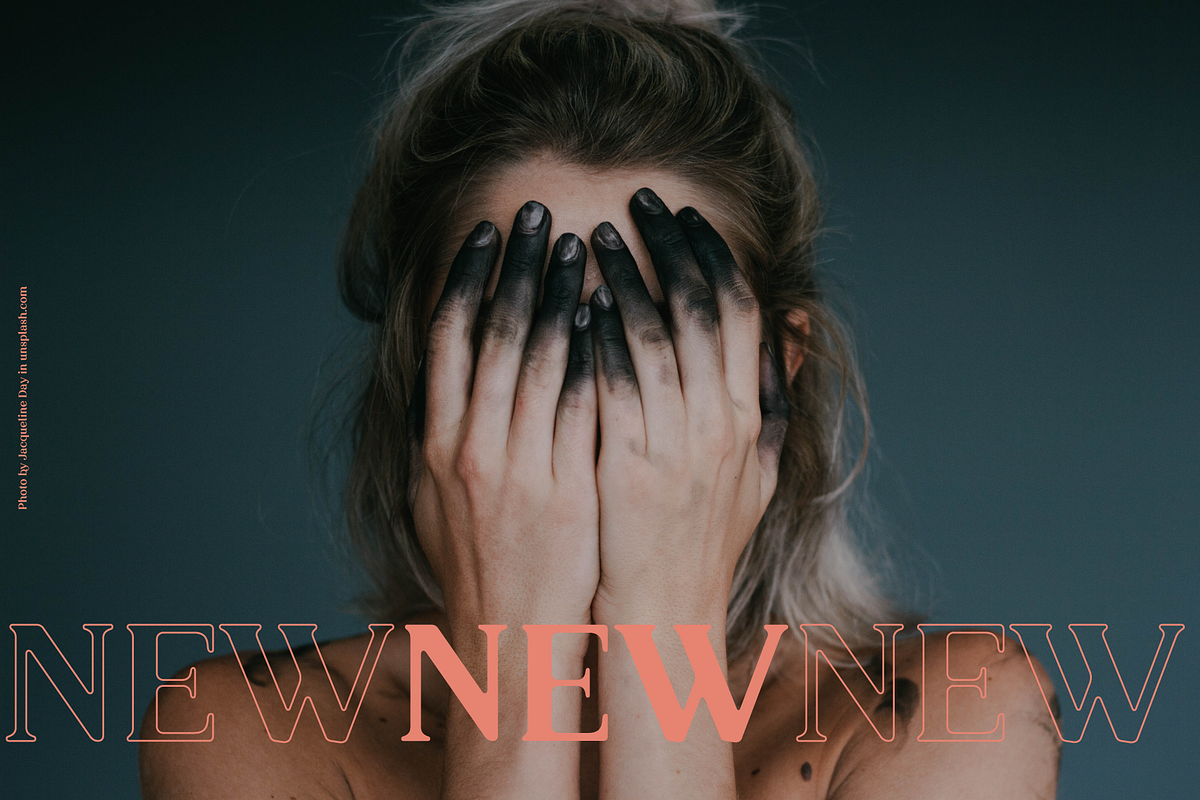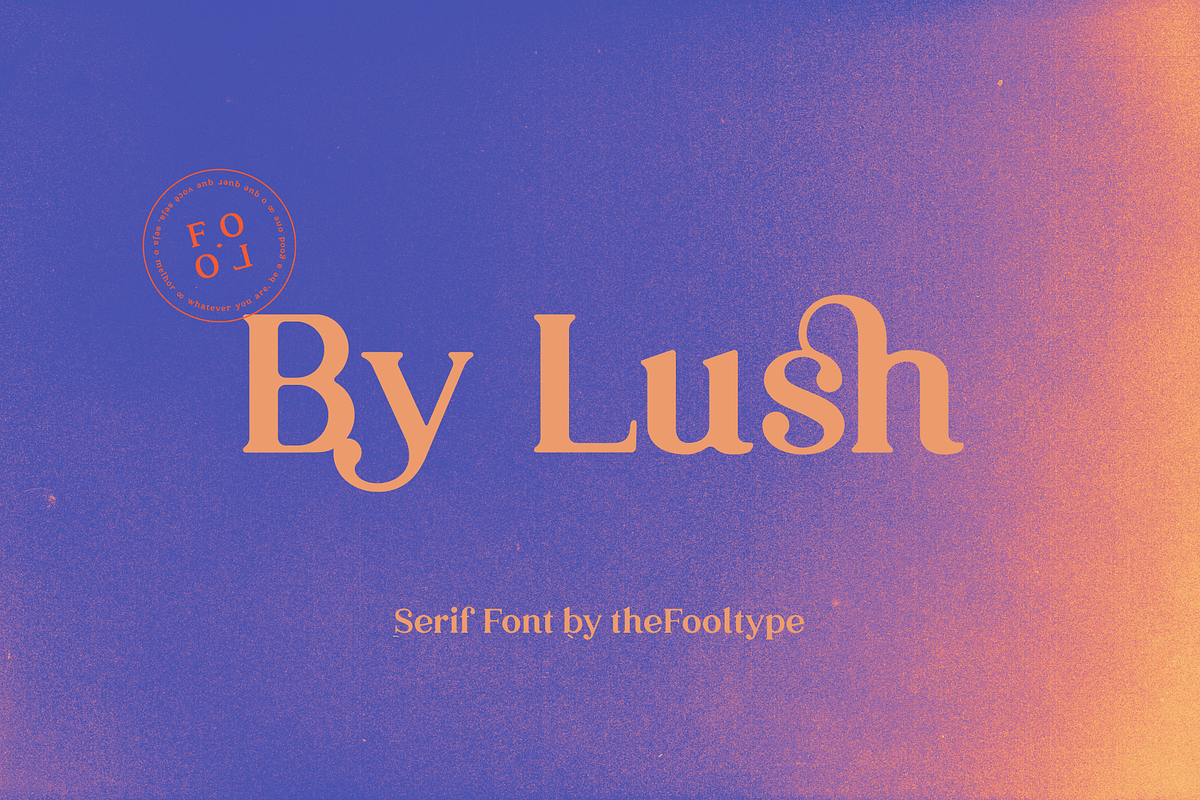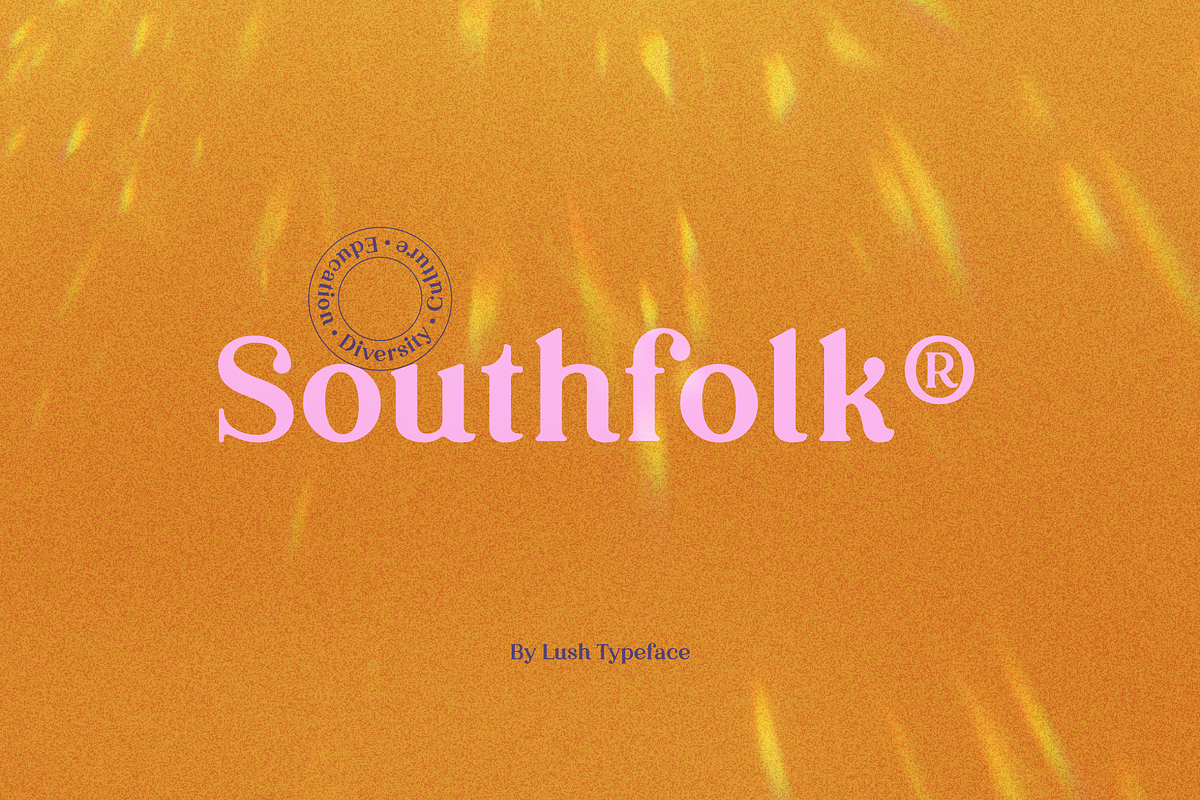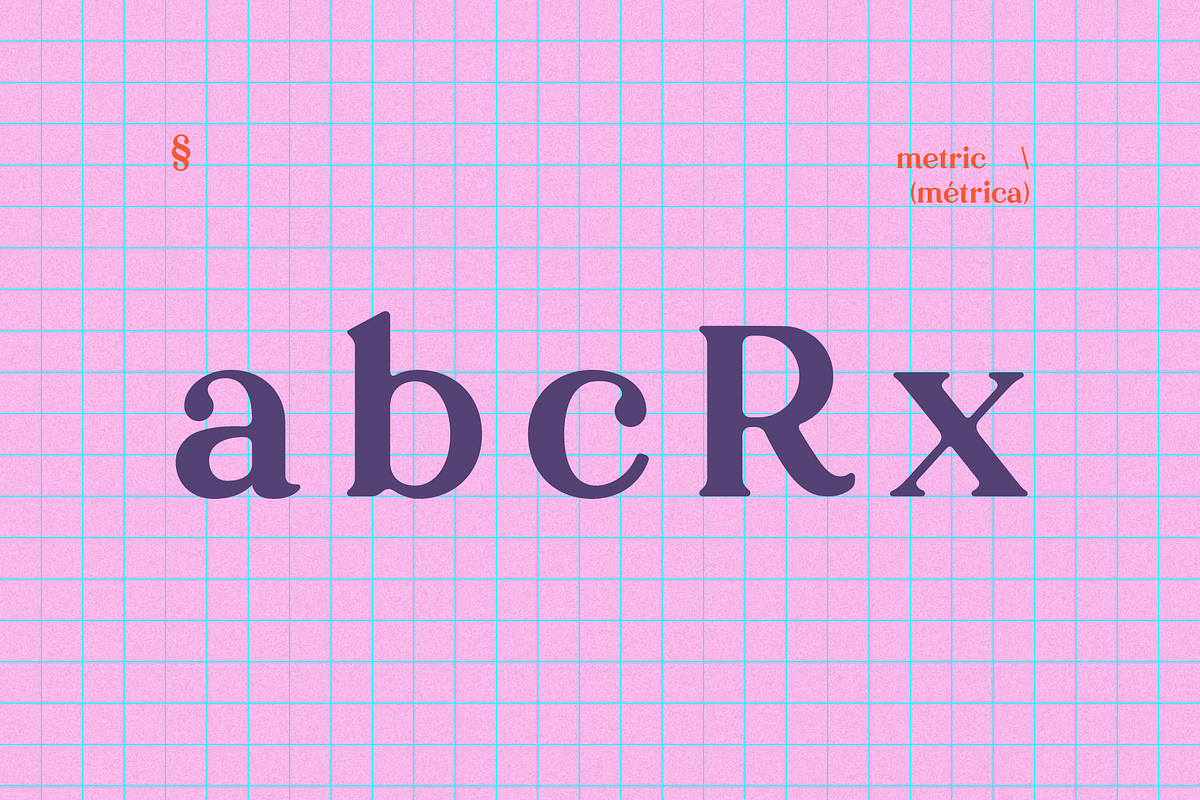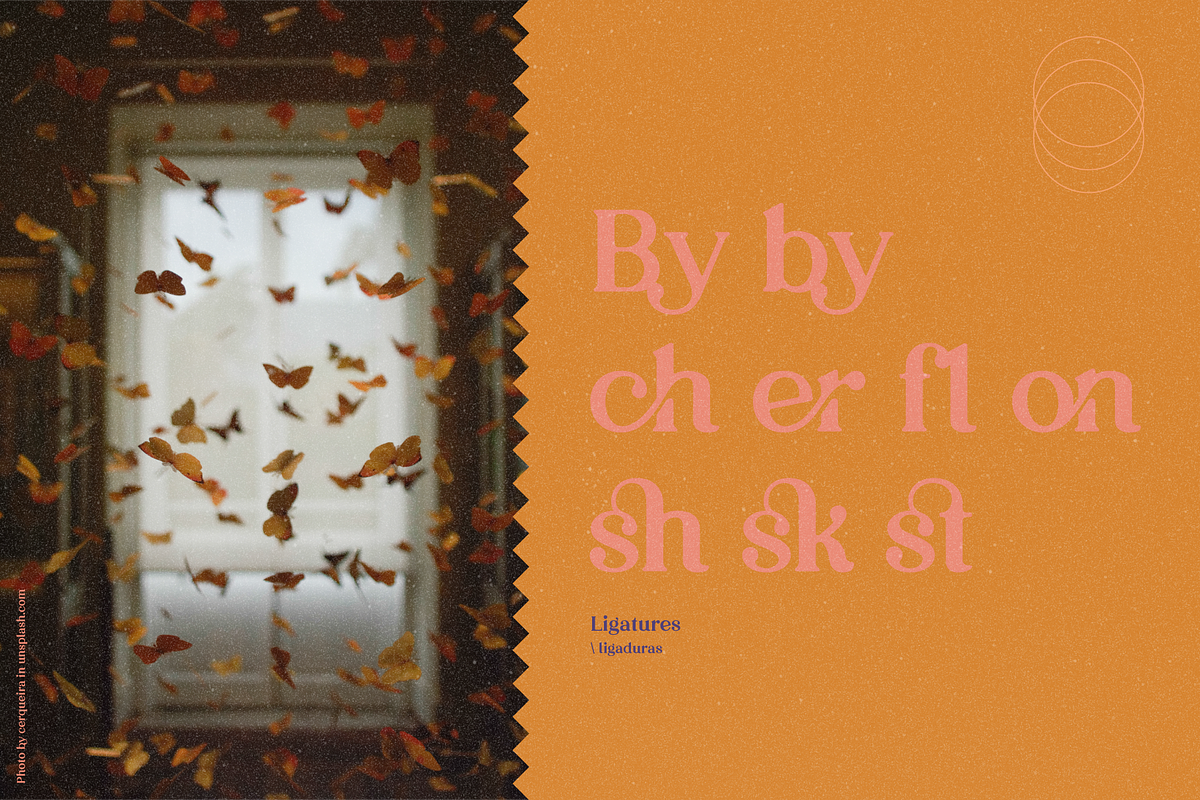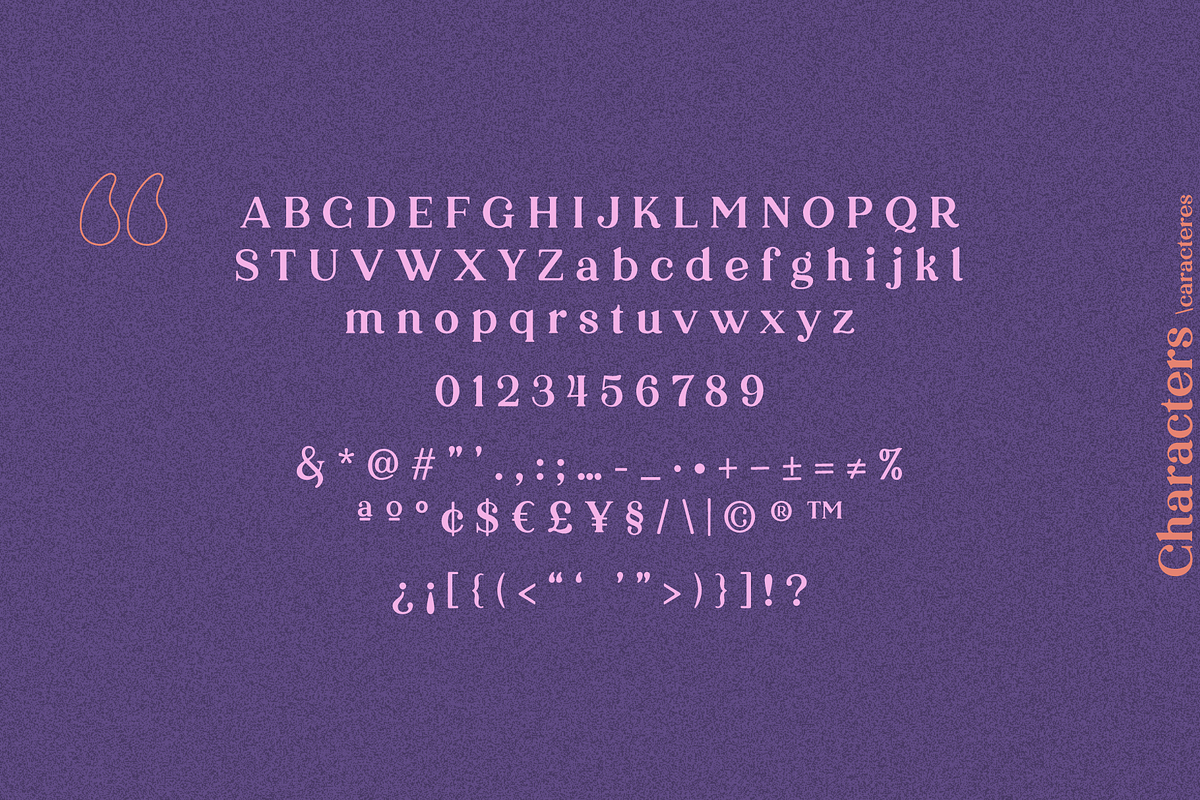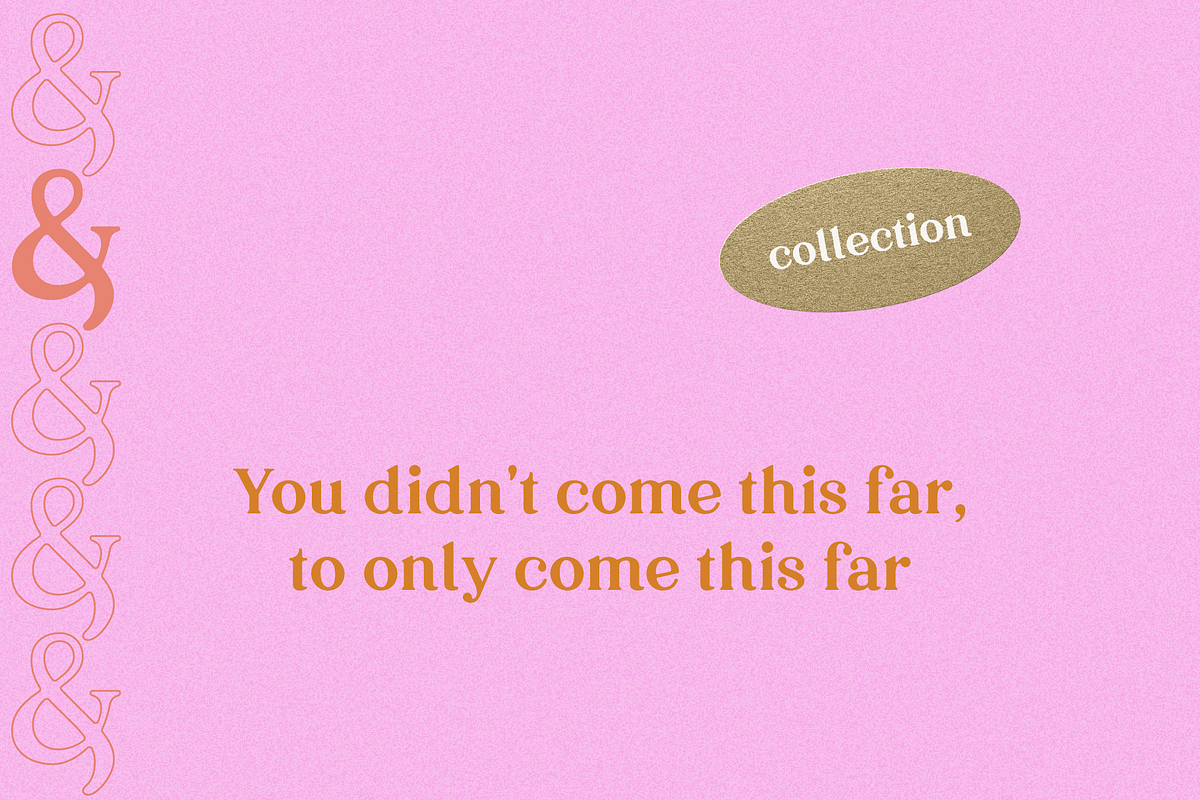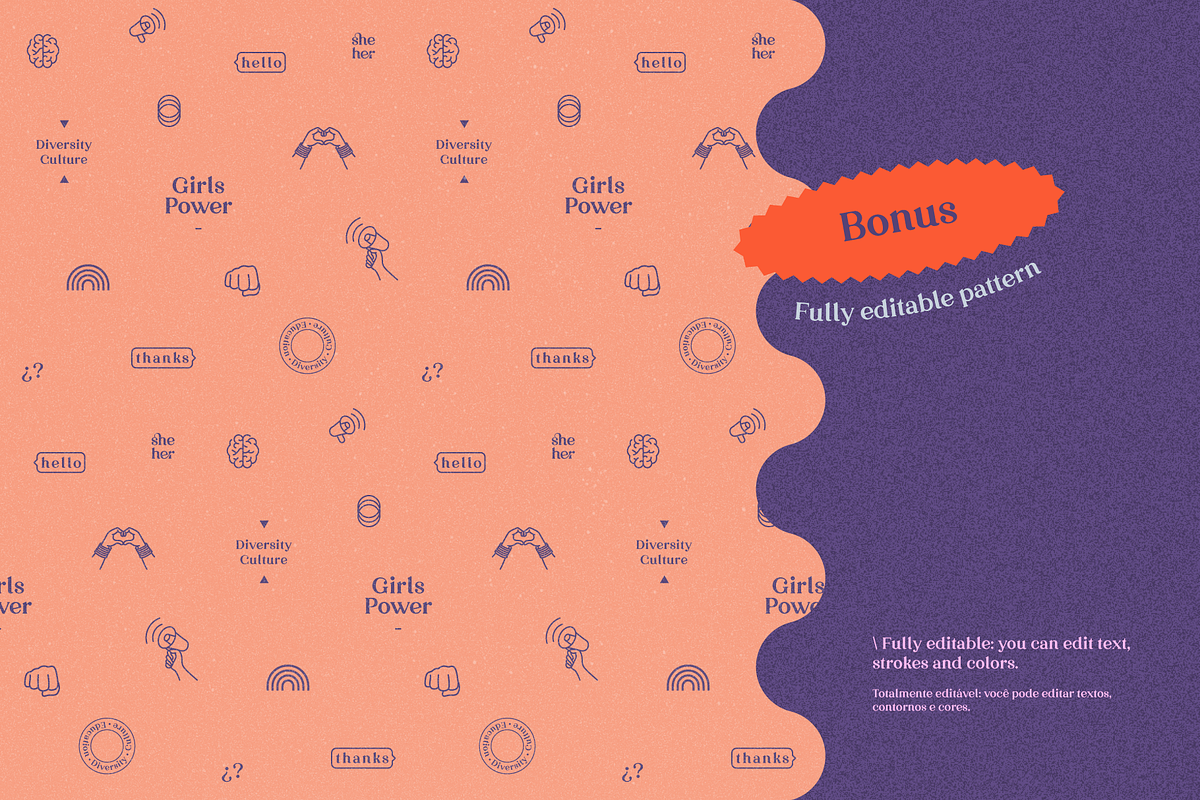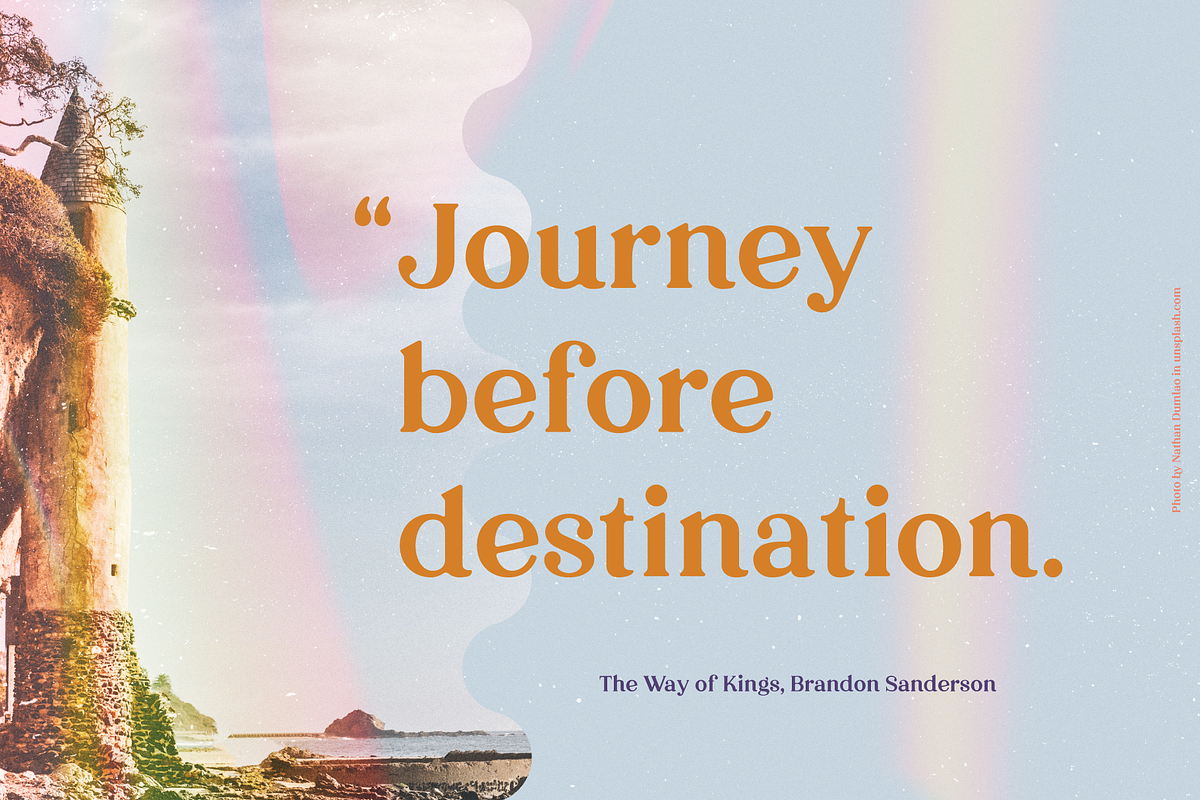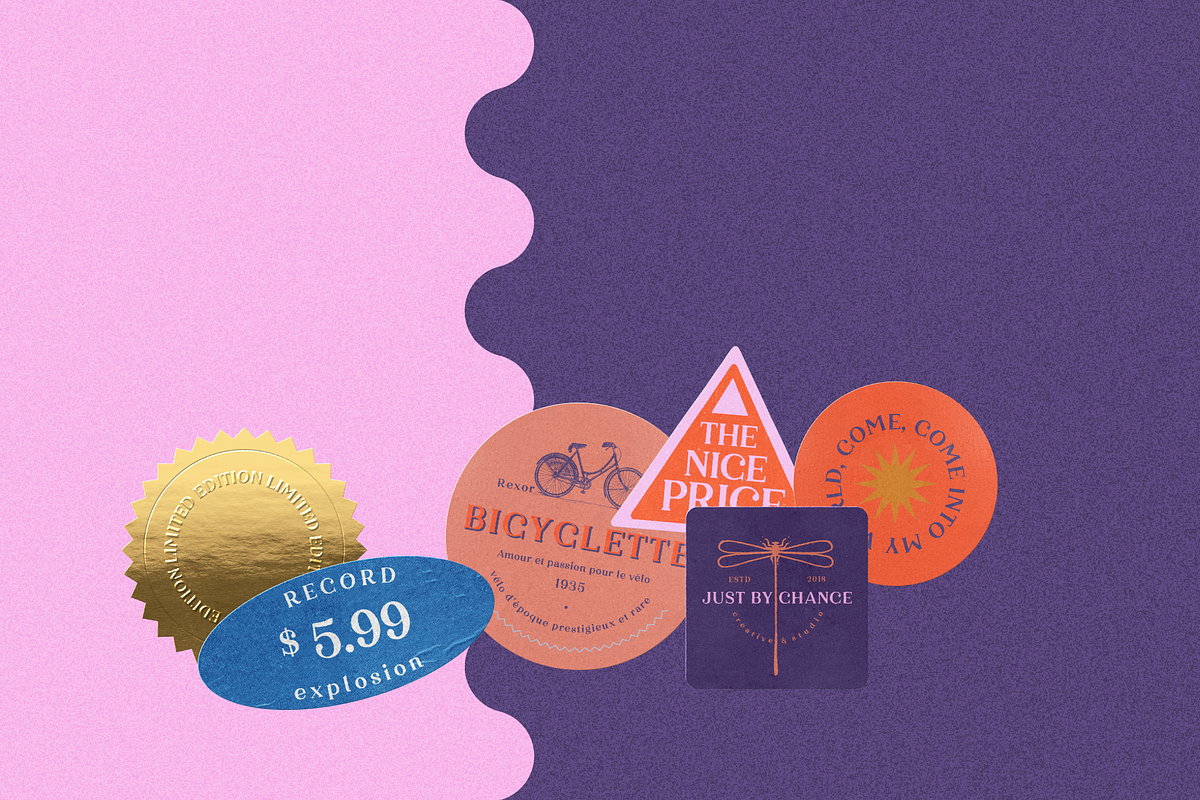
By Lush - Modern Cute Serif
By Lush is a well-balanced, retro-modern typeface with a playful and versatile vintage serif family featuring over 300 glyphs, including uppercase and lowercase letters, numbers, and symbols. This display font with moderate contrast is perfect for branding projects, logos, t-shirt designs, social media posts, packaging, advertisements, labels, invitations, stationery, and other projects where high legibility is essential.
- Opentype features (ligature)
Supported Languages: Basic Latin Full Support, Eastern, Central and South-Eastern Europe.